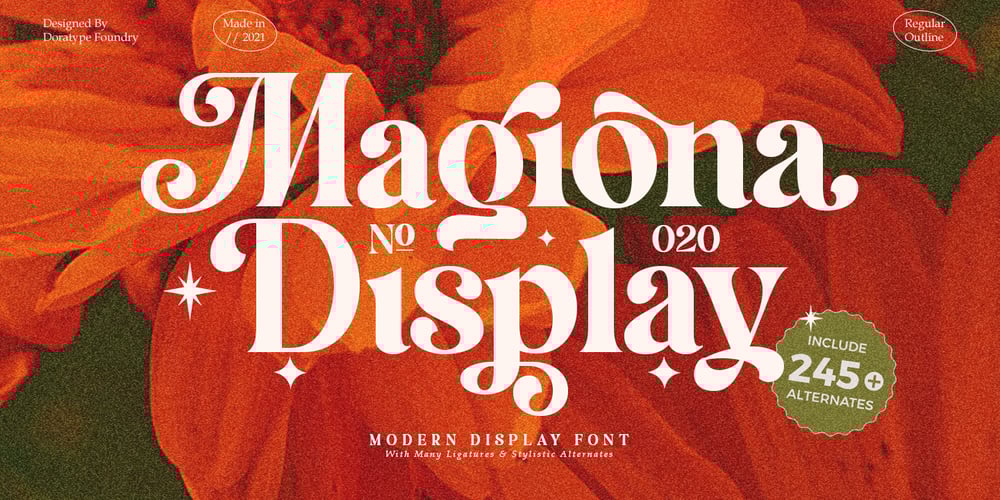
Magiona Display Font Family was designed by Zahratul Laila and published by Dora Typefoundry. Magiona Display contains 4 styles and family package options. Magiona Display – A modern classic serif font, perfect for creating bold & beautiful designs. Magiona Display is classic and sophisticated typography with 2 weights to captivate your next project. A very versatile font that works in both large and small sizes. This font is suitable for a wide variety of projects such as: headlines, logos, labels, branding projects, magazines, homeware designs, product packaging, mugs, quotes, posters, and more. It can also be more expressive and fun, thanks to the many alternatives and binders that combine harmoniously in this font and make it more interesting and versatile. Try to change alternatives, binders and you will get many options for your project which will make it bold & beautiful. Features:• Full set of uppercase, lowercase letters• 55 Ligatures• 245 Alternates• Big range of numbers, symbols & punctuation• Characters with accents• Supports Multiple Languages• PUA Encoded WHAT’S INCLUDED:• Magiona Display – Regular• Magiona Display – Outline This type of family has become a work of true love, making it as easy and enjoyable as possible.I really hope you enjoy it!I can’t wait to see what you do with Magiona Display! Feel free to use the #Dora Typefoundry tag and # Magiona Display font to show what you’ve donevisit my Instagram : https://www.instagram.com/doratypefoundry/Thank You!